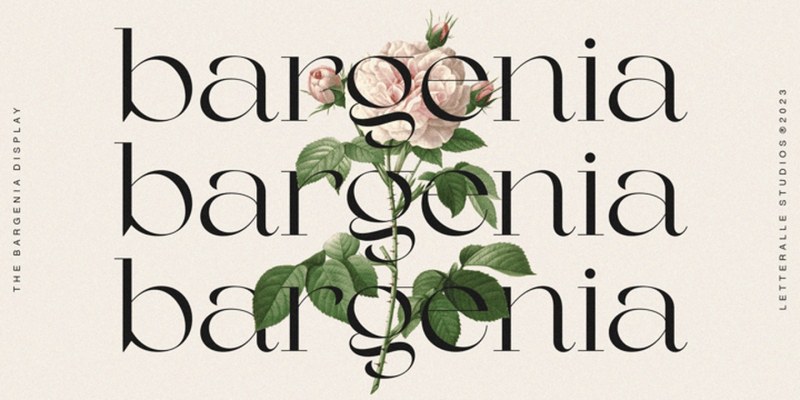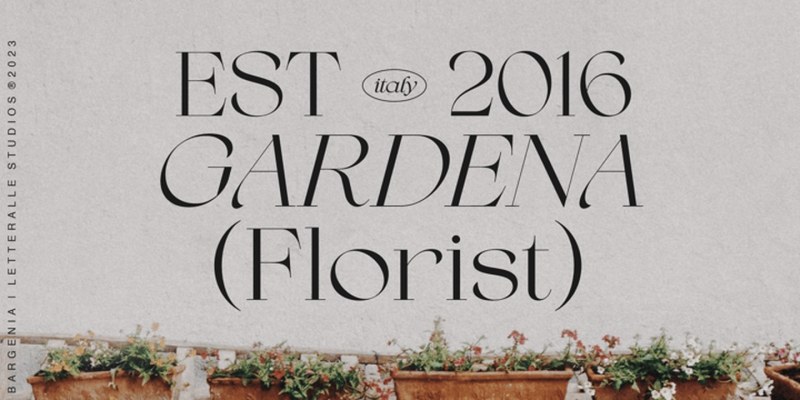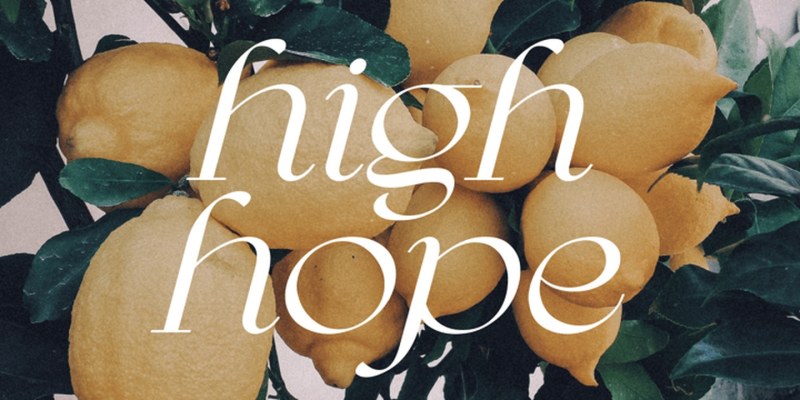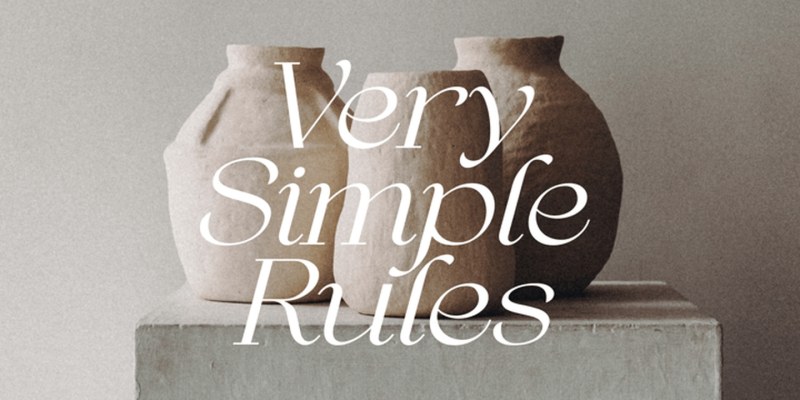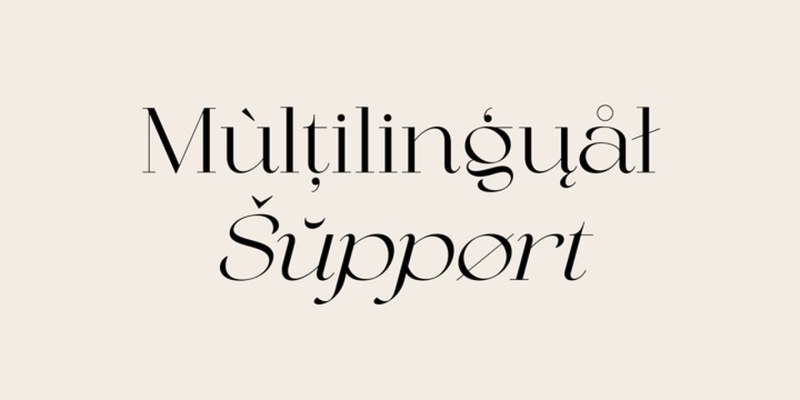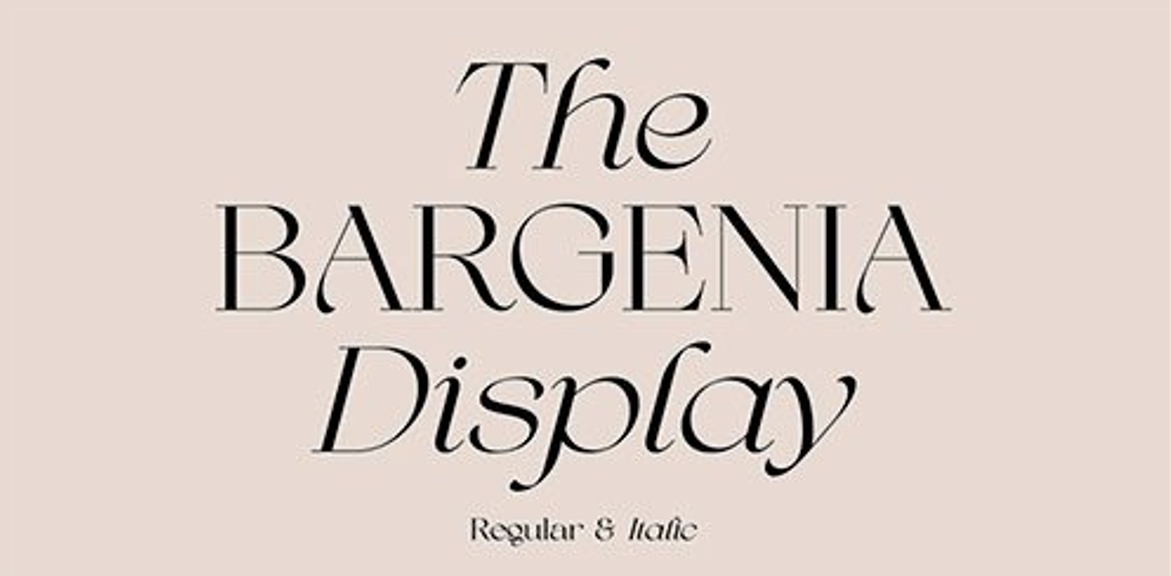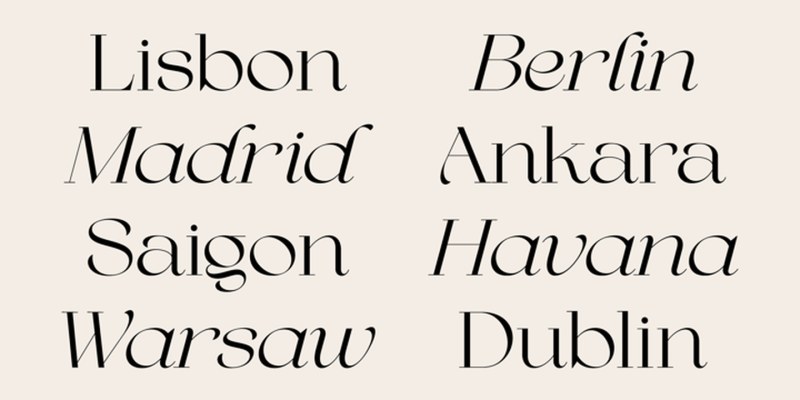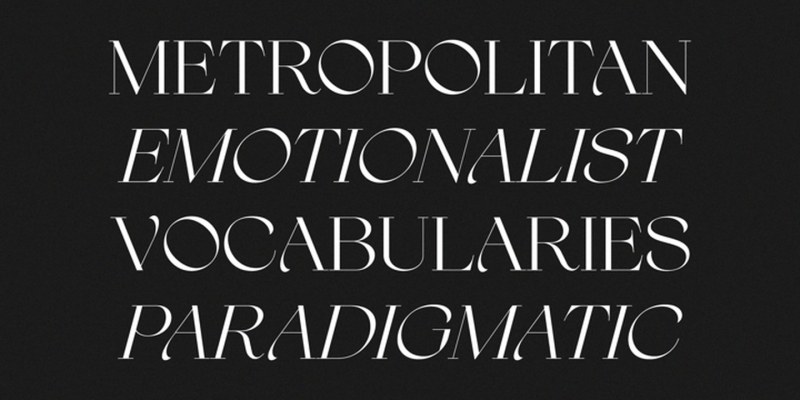
Bargenia Font Family
Introducing, Valery! a serif display font with a modern yet luxurious style. Aesthetic and unique letterforms, as well as soft curves are the hallmark of this font. Valery is a versatile and multigender font. Perfect for editorial projects, Logo design, Wedding, Clothing Branding, product packaging, magazine headers, or simply as a stylish text overlay to any background image.
Bargenia Font Family is a Display Fonts font that brings a professional and versatile look to your projects. Introducing, Valery! a serif display font with a modern yet luxurious style.